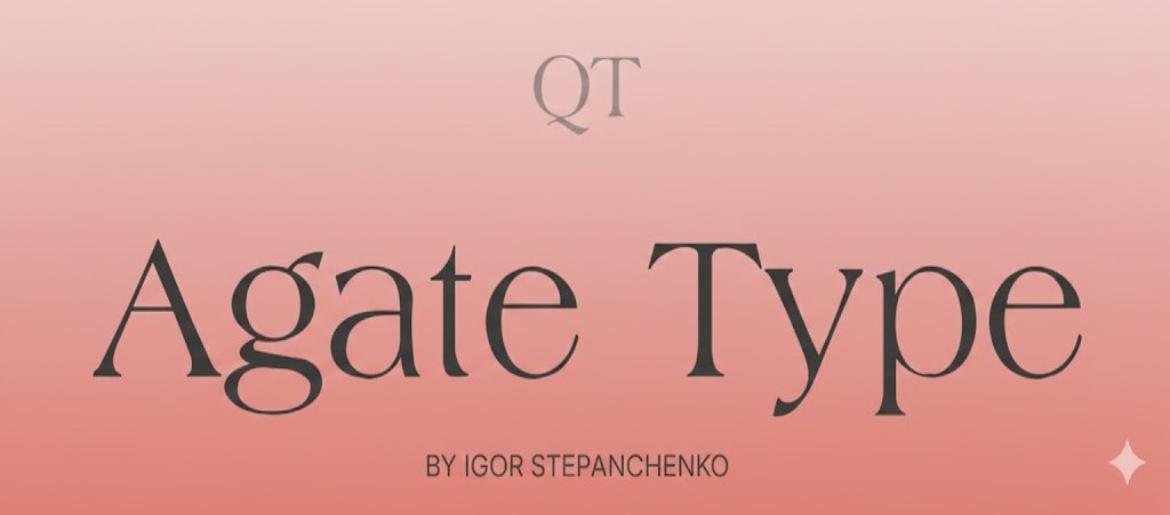
Agate Font
Agate Font is a serif typeface inspired by the iconic Americana font designed by Richard Isbell in 1965. It features classic proportions and vintage editorial charm, making it suitable for headlines, magazines, branding, and retro-inspired design projects. Its timeless character and balanced readability help it stand out as a stylish and heritage-inspired option within elegant free fonts collections.
➤ Font Name: Agate
➤ Designer: Qualitype
➤ Style: Serif